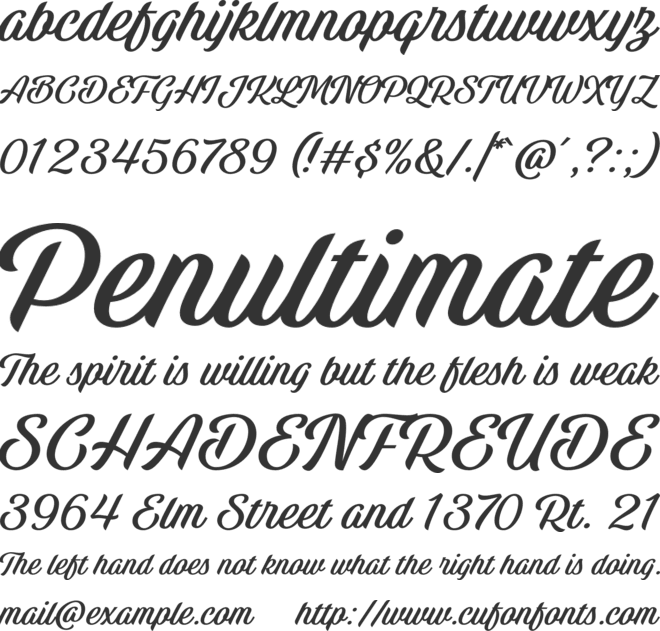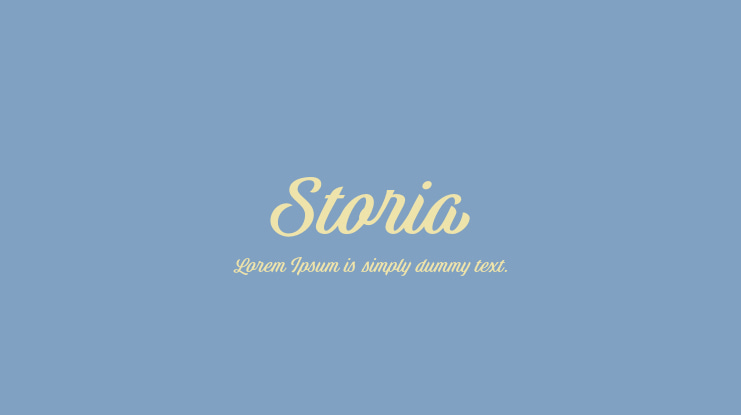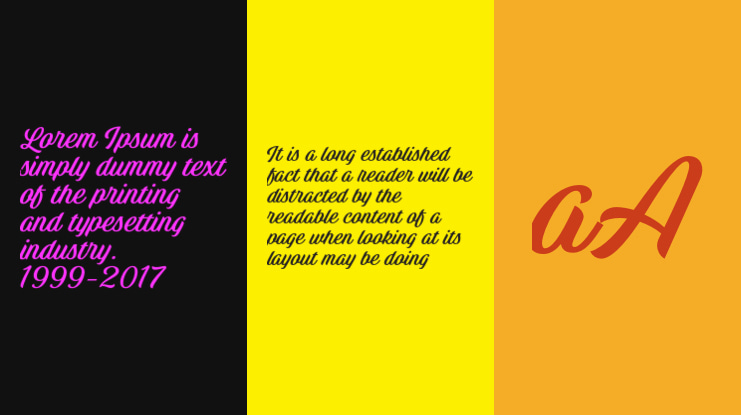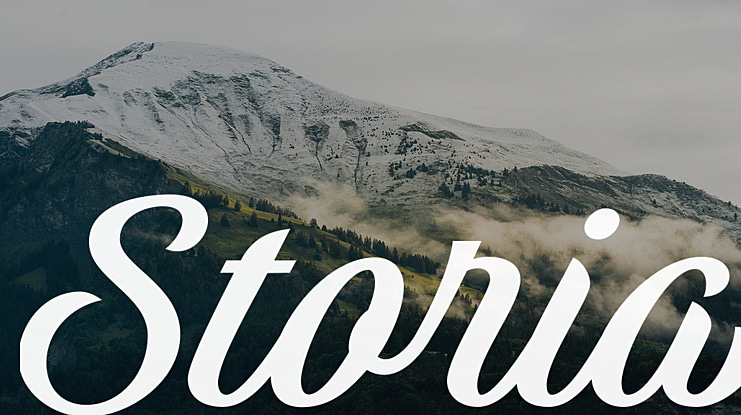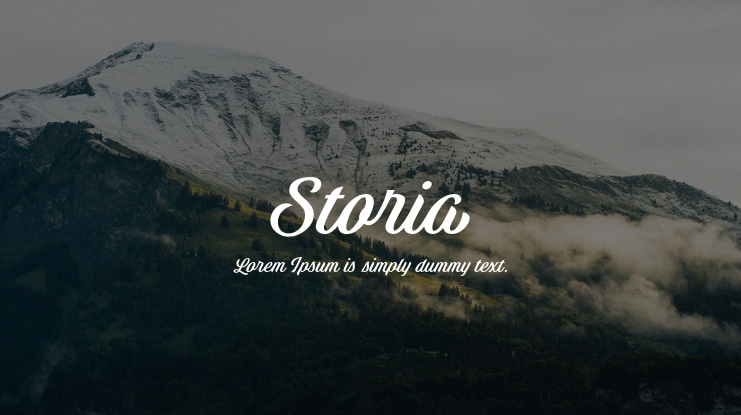
Storia Font Family
Annas Alam Yahya
This is a readable and finely balanced handwritten font. With consistent and natural detail, Storia also come with underline swash (You can access it by typing s1-s3). Frinkle Brush can be placed in many design needs such as, merch, branding, packaging, social media, events, and many more.